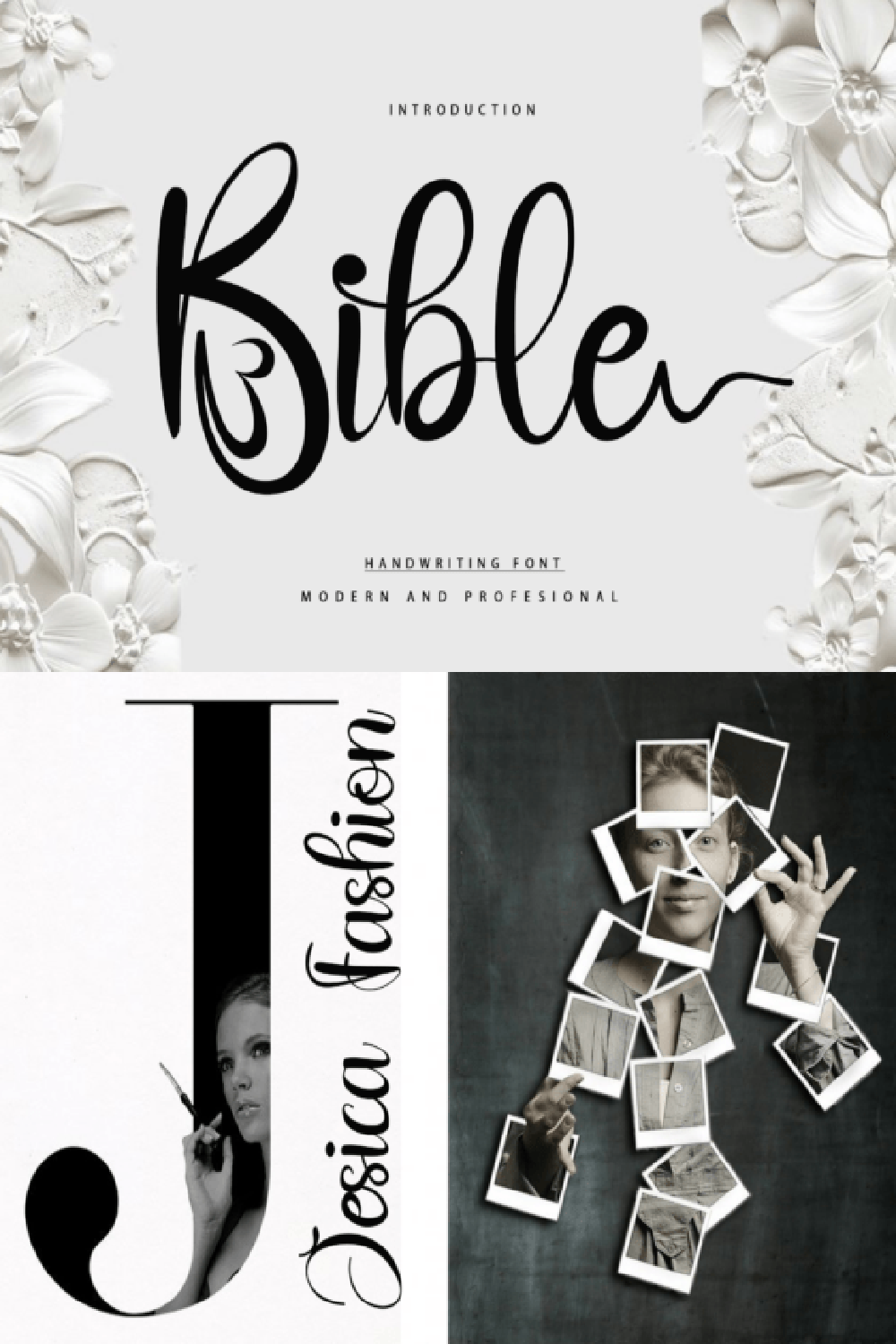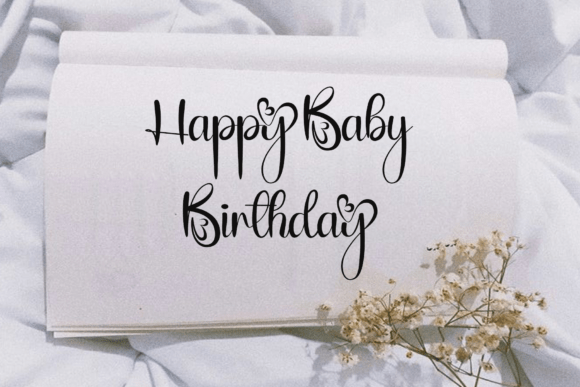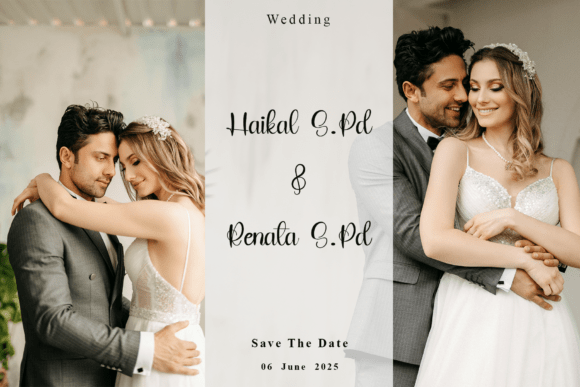
Bible Font
About the Bible Font
Experience the unique personality of Bible Font, a font designed for impact. Bible is a delicate handwritten font carefully crafted for a cool and unique design. This font can be used to write letters, invitations, food products, titles, and more.